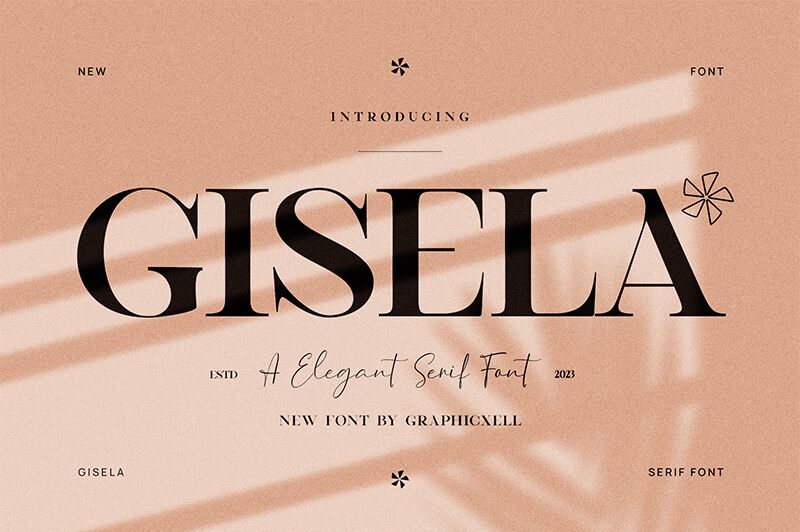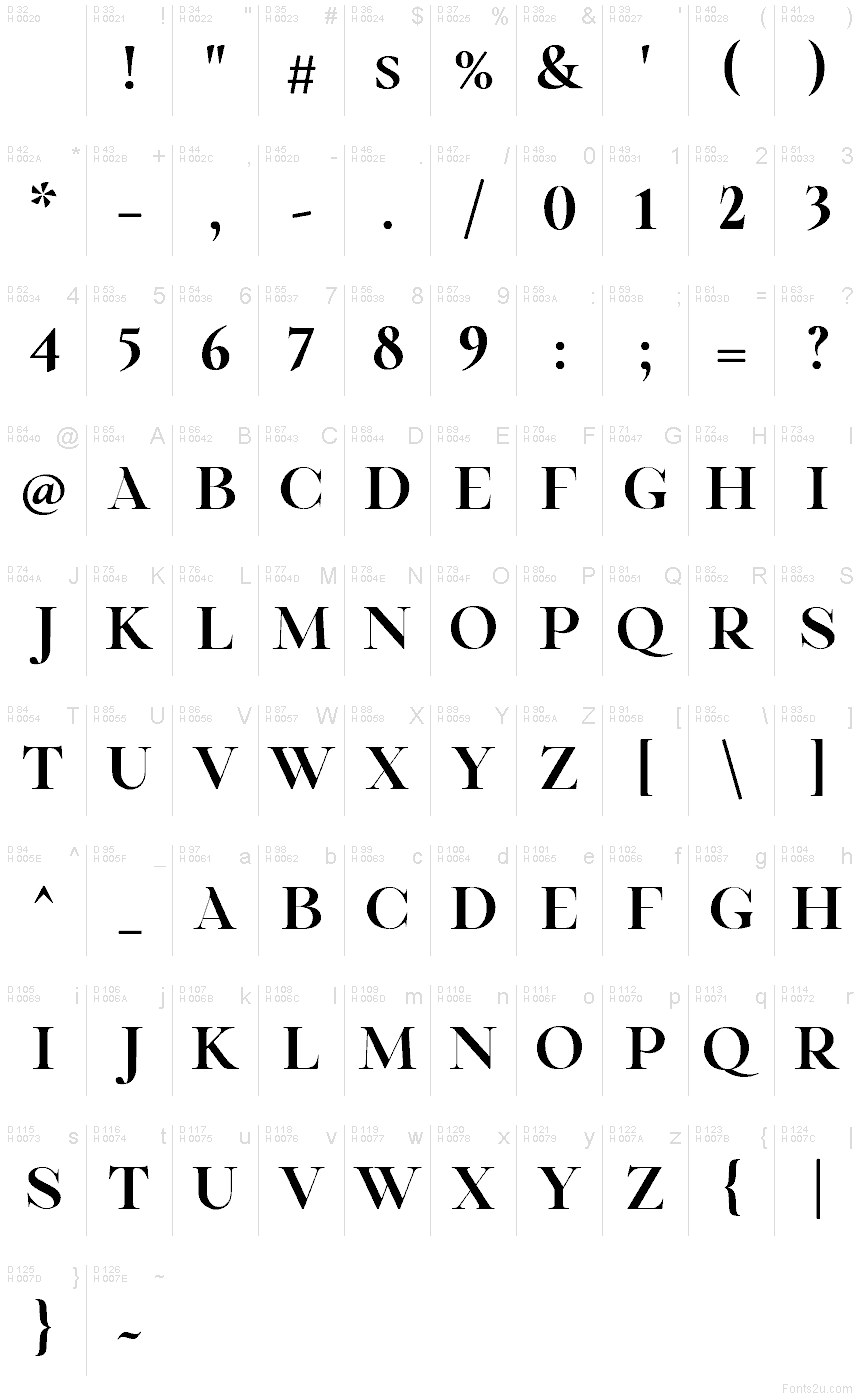
Gisela
Gisela font by Graphicxell is a free serif typeface with a couture snap: razor-fine hairlines meet generous, inky stems, and the serifs end in crisp, chiseled wedges. The letters feel sculpted—curves sweep like satin, straights land with a firm thud—creating a confident rhythm that reads luxe without shouting. It carries presence even with modest spacing, so headlines feel lush and controlled.
Using Gisela, you’ll elevate fashion branding, magazine covers, beauty packaging, upscale posters, album art, wedding stationery, and statement logos. This free font holds together beautifully at large sizes; add a touch of tracking for extra air. Pair it with a clean, unobtrusive sans for body copy to keep the spotlight on those elegant shapes.